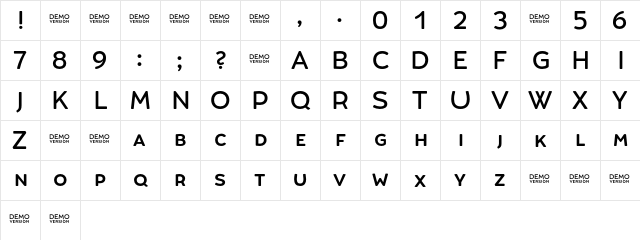
Umba Soft SC Medium Demo
| Foundry | Anita Juergeleit |
| Designer | Anita Juergeleit |
Design Context for Umba Soft Typeface
Umba Soft takes a measured approach to typography — its balanced proportions and neutral character make it a reliable workhorse for both digital and print work.